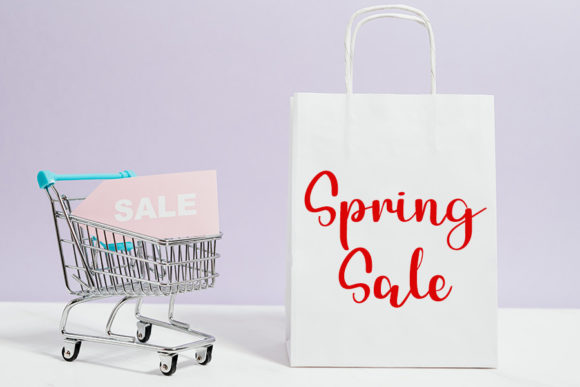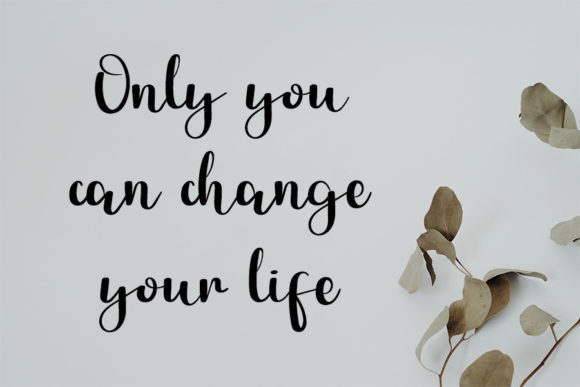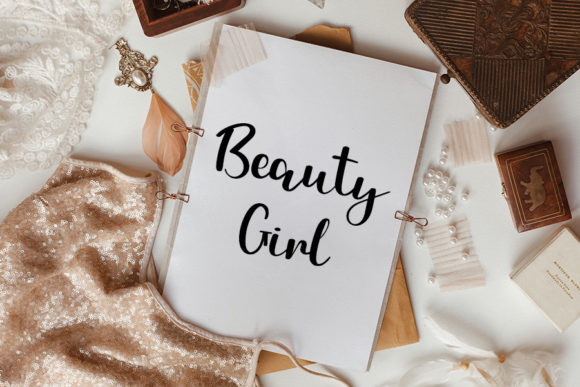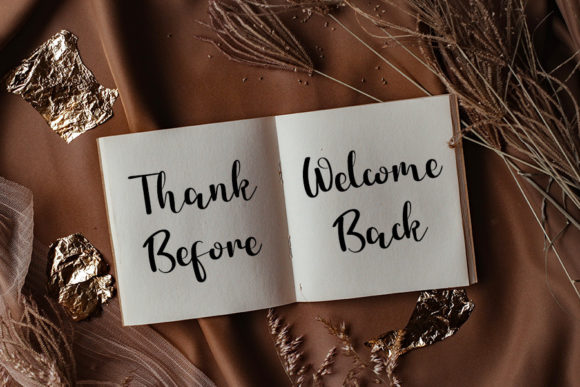
About Hello Spring Font
“Hello Spring” is a trendy handwritten font that brings a contemporary atmosphere and impeccable form to your design projects. Drawing inspiration from timeless classic calligraphy, this font seamlessly blends elegance and modernity. Its stylish and handcrafted appearance adds a touch of sophistication and class to various creative endeavors.
Whether you’re working on branding, logos, invitations, or other design projects, “Hello Spring” has the versatility to enhance the visual appeal. The handwritten style of the font imparts a personal and authentic touch, making it an excellent choice for designs that require both elegance and a modern aesthetic.
The font’s adaptability allows it to be used across various products, catering to the specific aspect of each need. Whether applied to packaging, labels, social media graphics, or any other design element, “Hello Spring” brings a trendy and refined quality to your creative work.
In summary, “Hello Spring” is more than just a font; it’s a design asset that adds a contemporary and elegant flair, inspired by classic calligraphy. Its impeccable form and modern atmosphere make it a standout choice for designers seeking a versatile and stylish font to elevate the aesthetics of their projects.